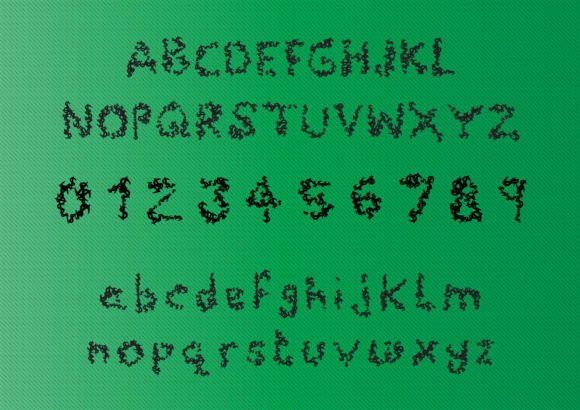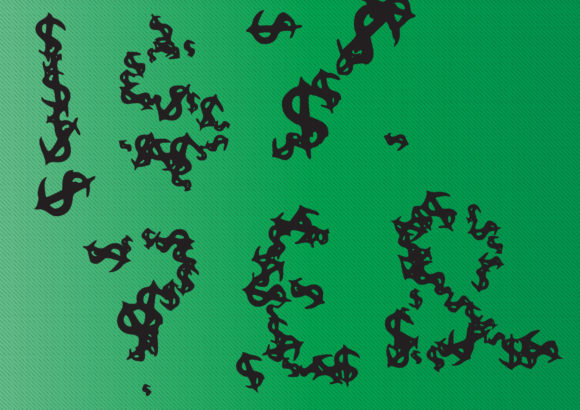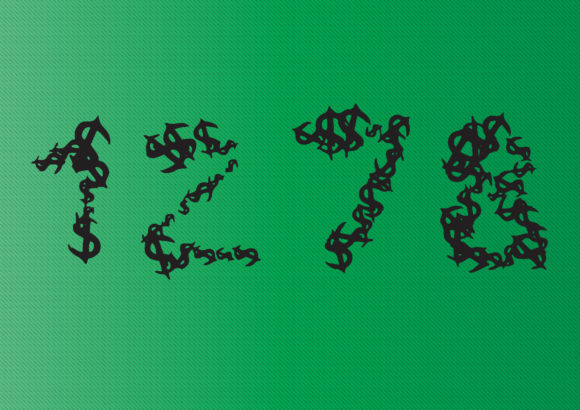
Introduction to Money Money Font
Money Money is a unique display font.
Get creative with its original look and create amazing greeting cards, funny quotes and much more .